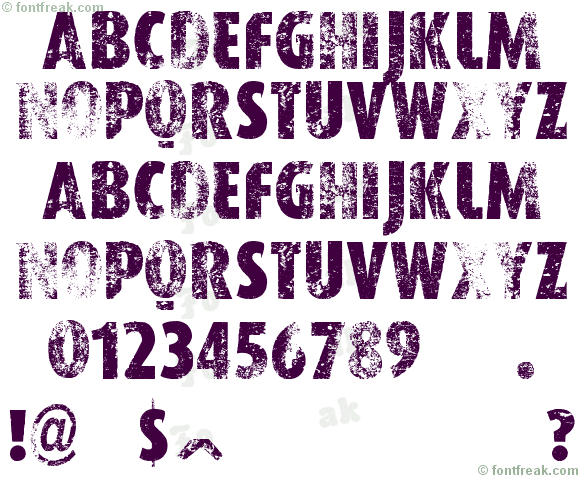
VTKS WORKER
About VTKS WORKER
VTKS WORKER, designed by Douglas Vitkauskas, is a unique display font that exudes a raw, industrial vibe. As a freeware typeface, it offers great accessibility for both personal and commercial projects. The font features a rugged, distressed style, characterized by its uneven stroke weight and a worn appearance that adds an authentic touch to any design. The spacing between characters is slightly expanded, enhancing readability while maintaining a bold presence. The decorative elements, including the varied textures and rough edges, contribute to its overall character, making it particularly suitable for projects that aim to evoke a sense of strength and durability.
This font is ideal for a variety of use cases. It can be effectively utilized for branding and logos in construction, manufacturing, or artisan businesses, where a tough, no-nonsense aesthetic is desired. VTKS WORKER is also perfect for event posters or flyers targeting themes like music festivals or street art exhibitions, where an edgy, urban feel is essential. Additionally, it works well for product packaging, especially for artisanal goods, capturing the essence of handcrafted quality. Small business owners, graphic designers, and content creators will find this font an excellent addition to their design toolkit.
What sets VTKS WORKER apart is its ability to convey a strong, impactful message through its visual style. The font's distressed characteristics not only draw attention but also evoke emotions of authenticity and craftsmanship. For anyone looking to make a statement in their design work, the VTKS WORKER font free download offers a compelling option that stands out in a crowded marketplace. Embrace the unique aesthetic of VTKS WORKER to elevate your projects and communicate your brand's identity with confidence.